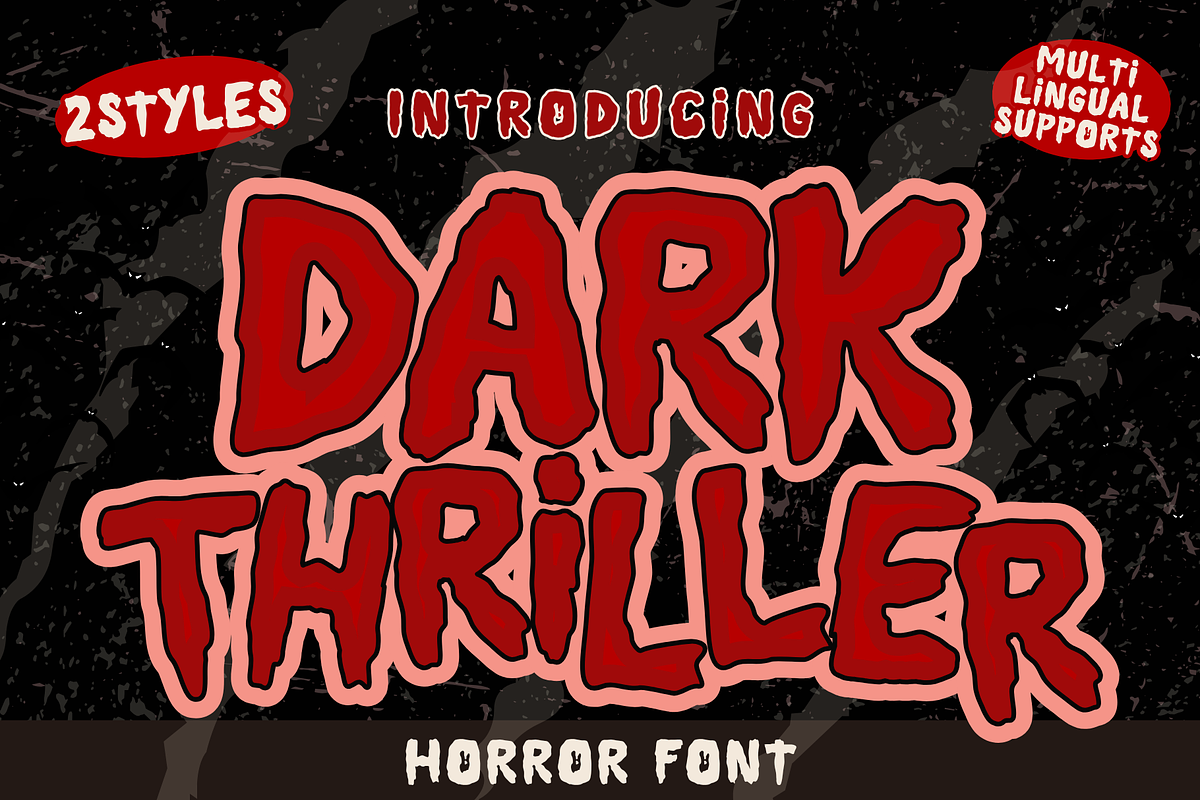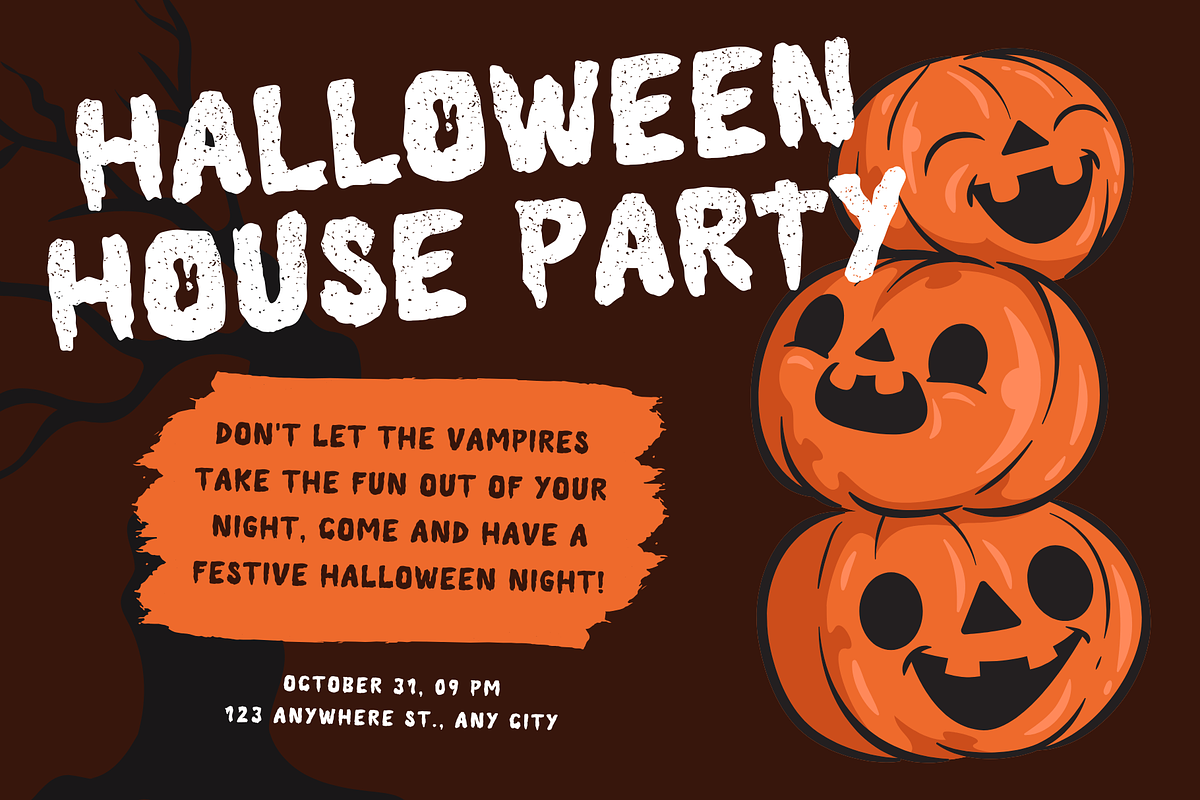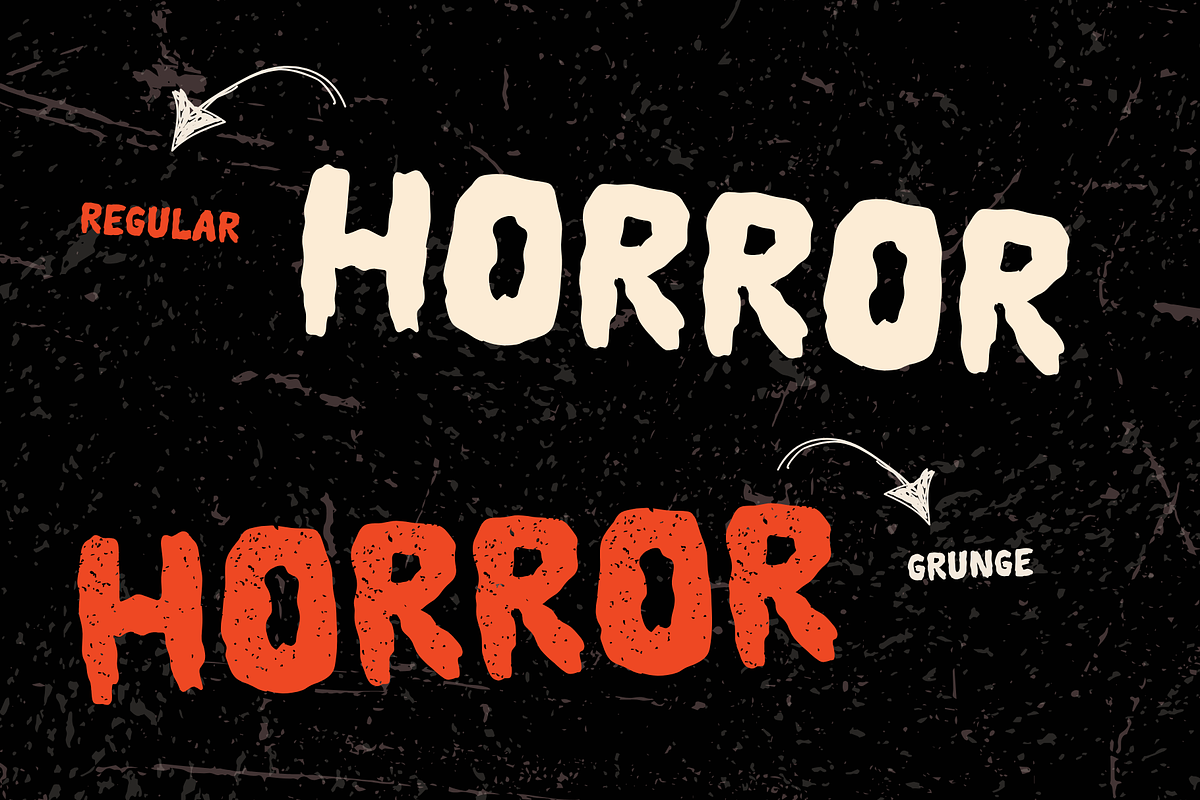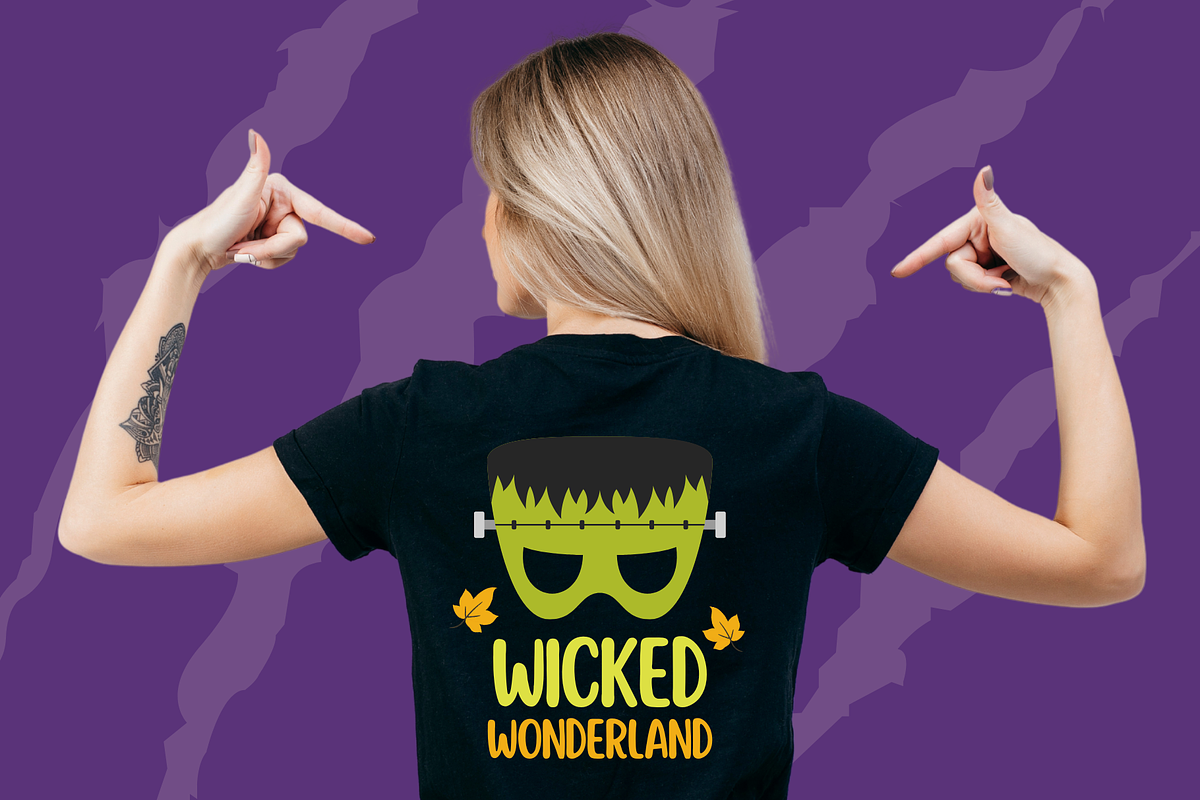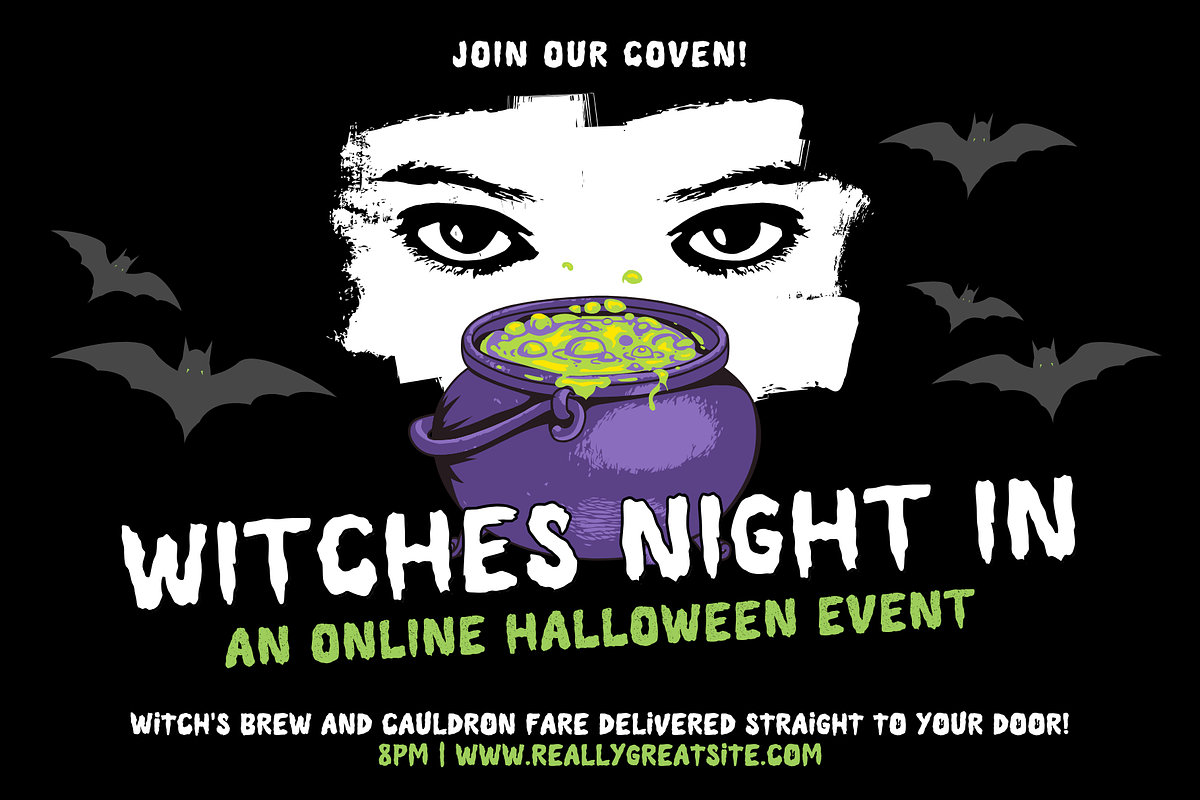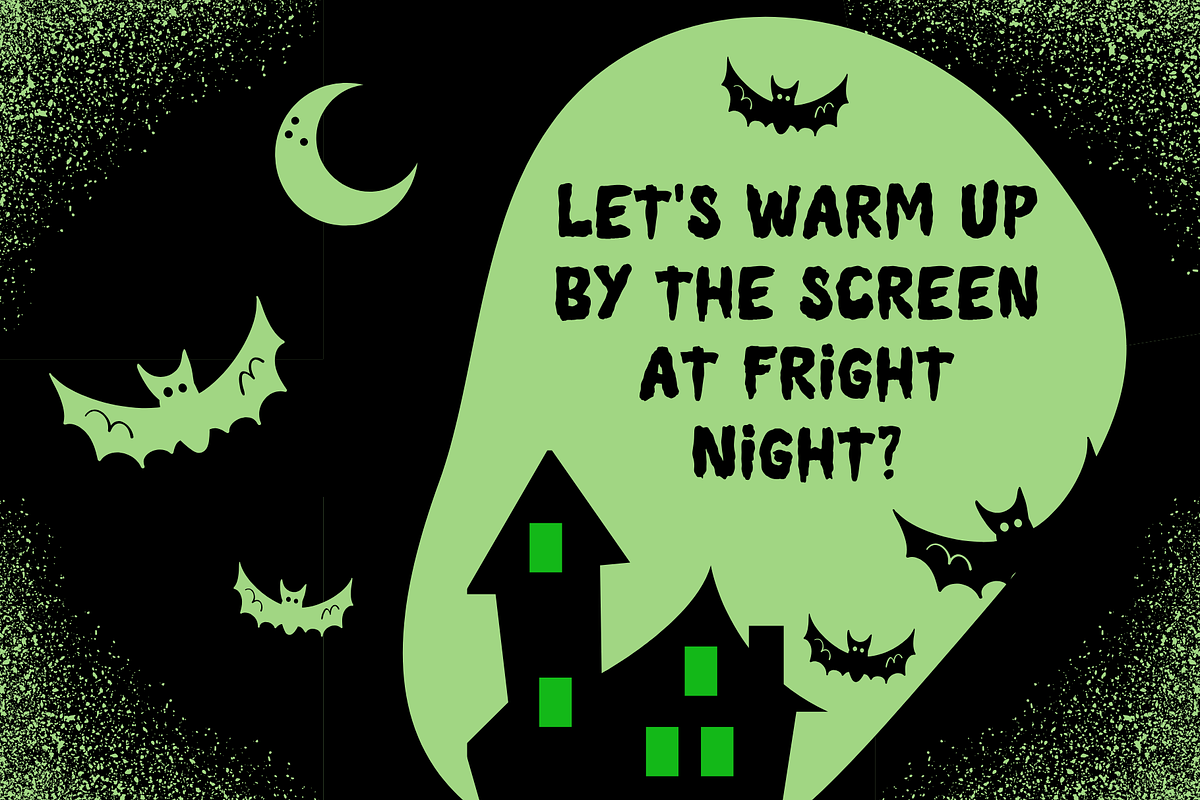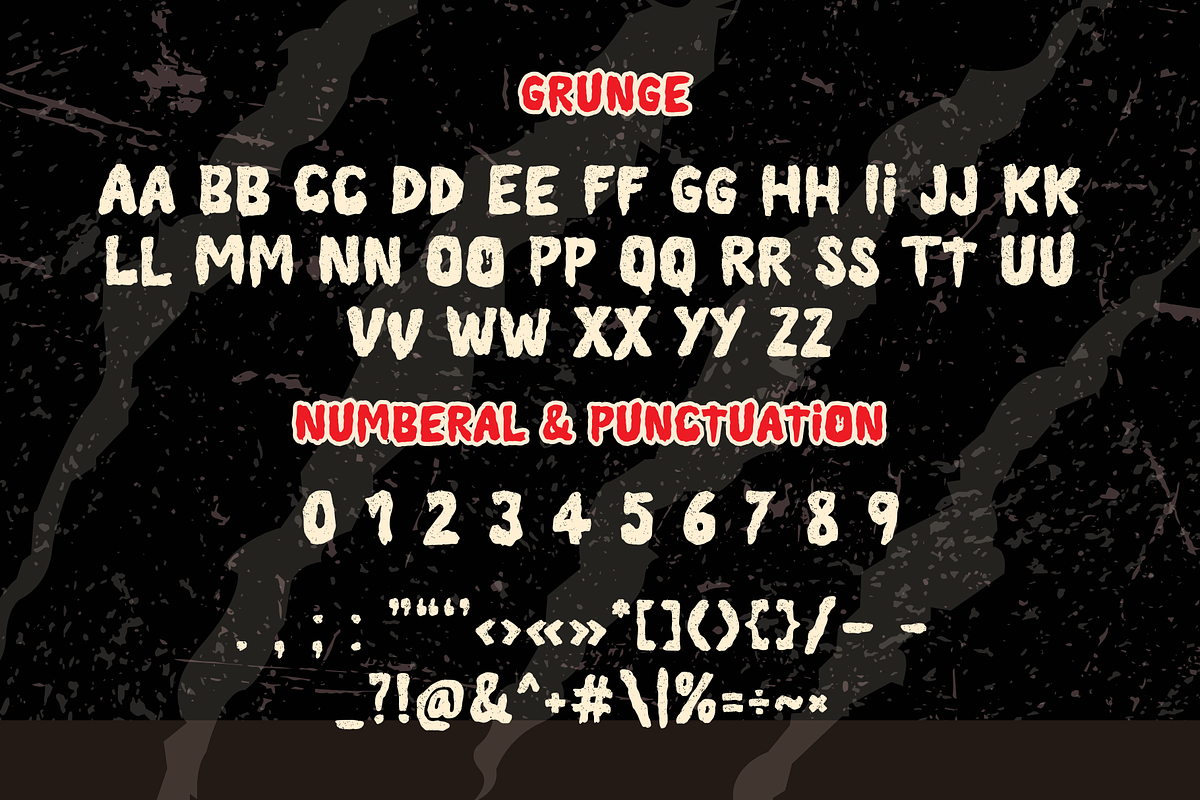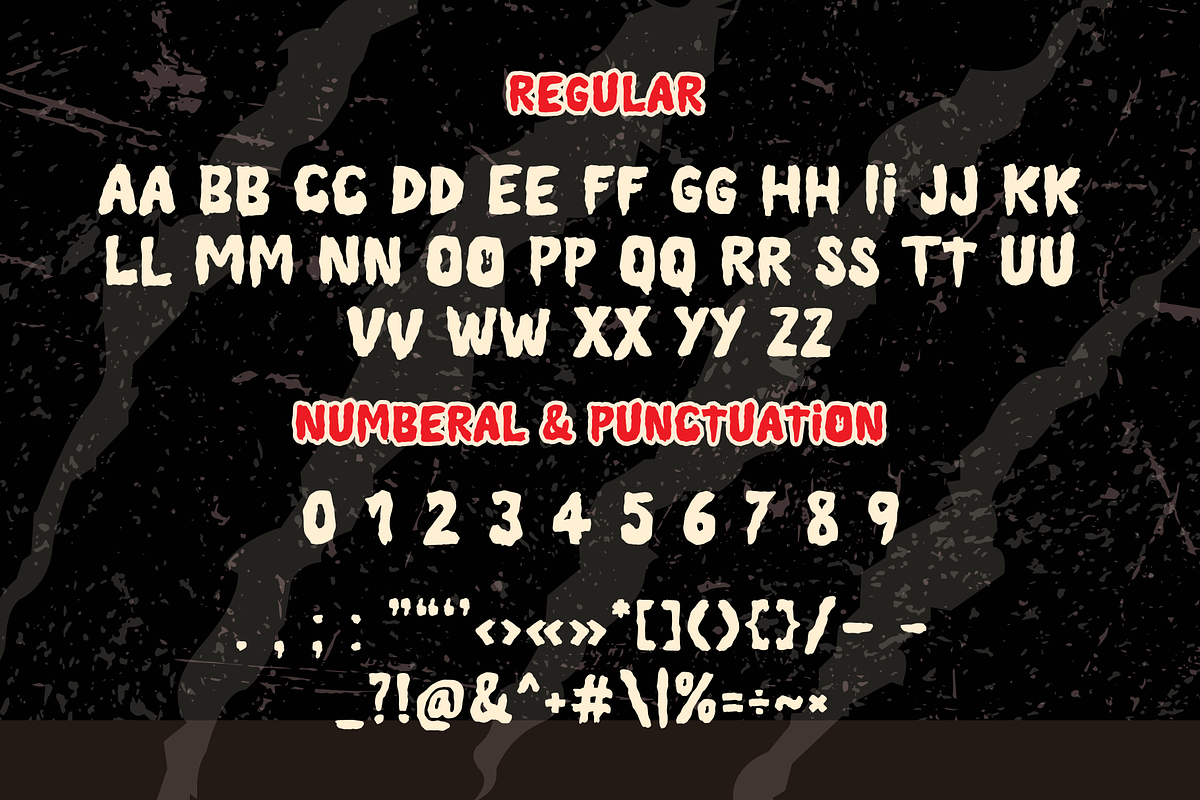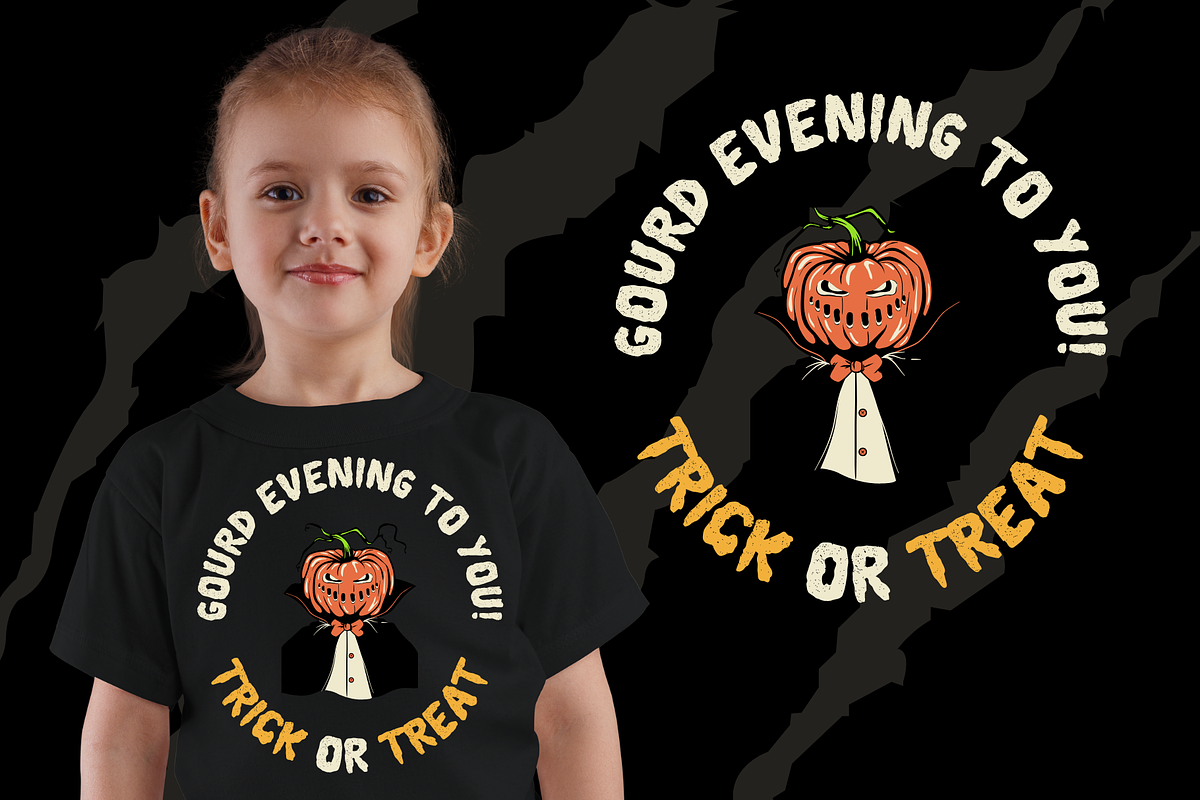
Dark Thriller is a Halloween font
Dark Thriller is a Halloween decorative font. It embodies playfulness and authenticity and is the perfect choice for all your favorite projects such as blog posts, logos, branding, ads, invitations, greeting cards, planners, photo albums, decorations, and more. Add it to any of your designs, and enjoy the results!